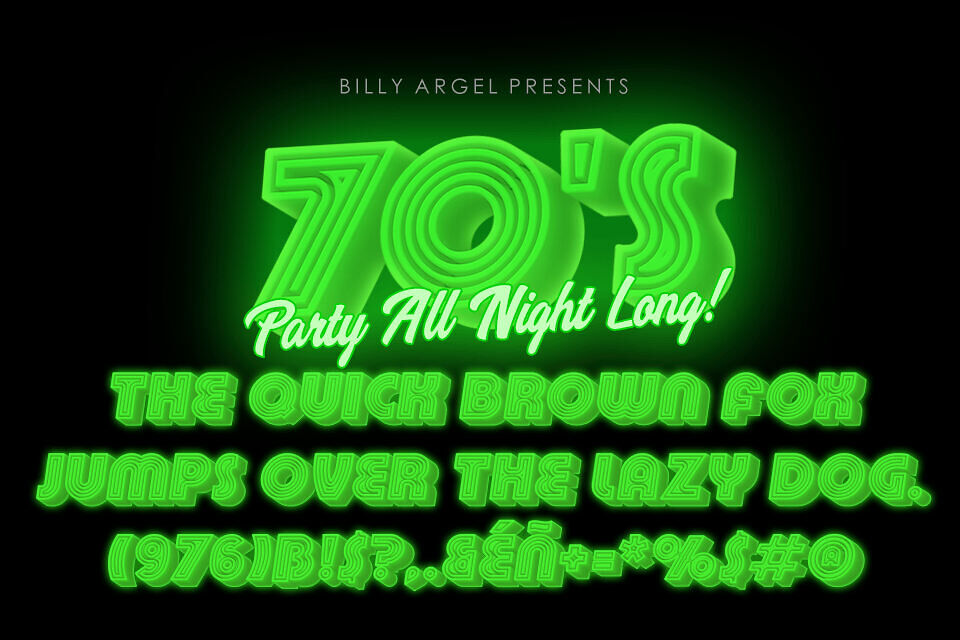
70’s Disco Font
The 70’s Disco Font by Billy Argel captures the groovy essence of the disco era with its bold, retro letterforms. Available in bold and bold italic, plus a script version, this typeface radiates funky nostalgia, perfect for party posters, themed logos, or vibrant merchandise. Supporting OpenType SVG in apps like Adobe Photoshop, it’s ideal for eye-catching designs.